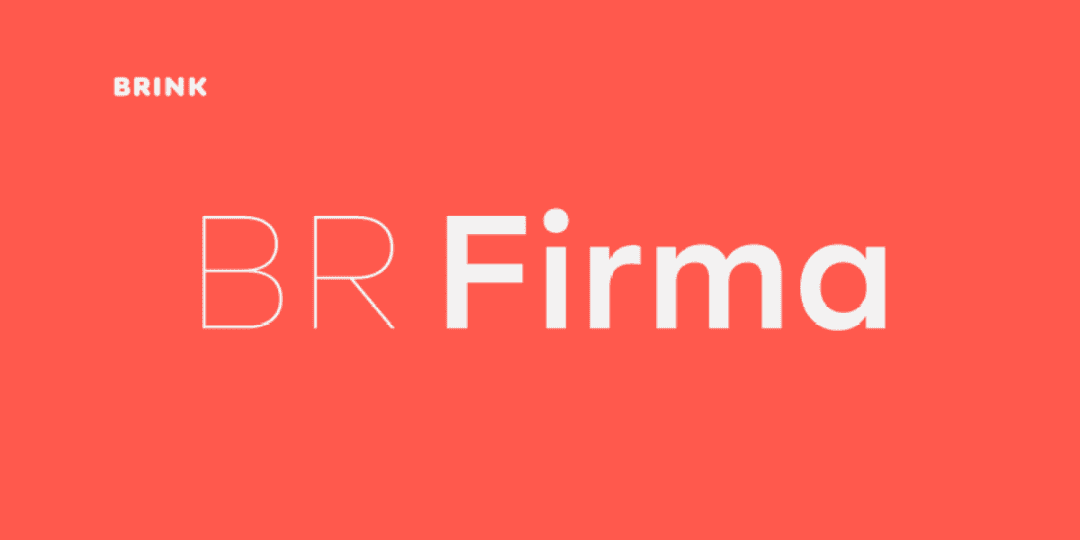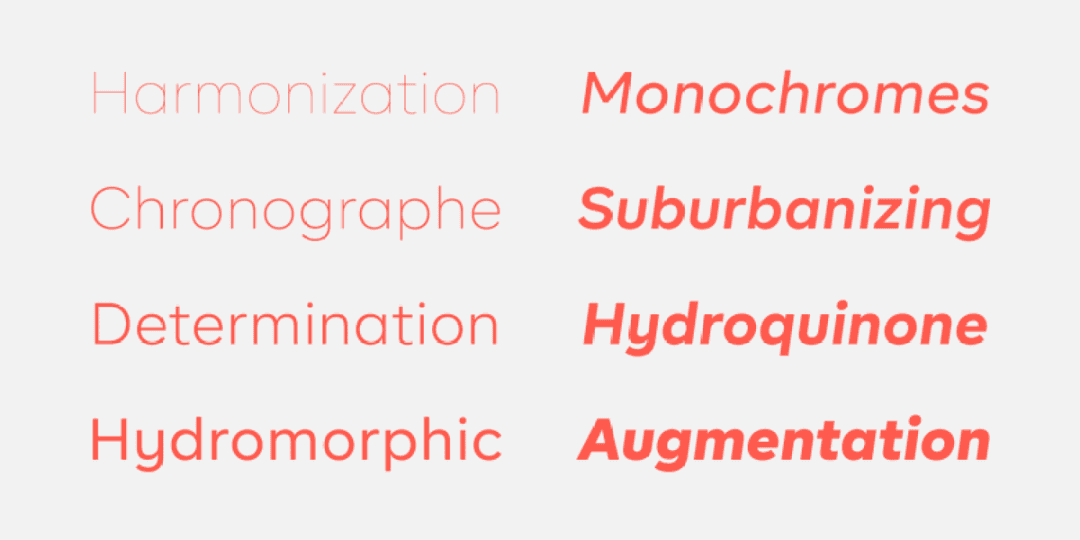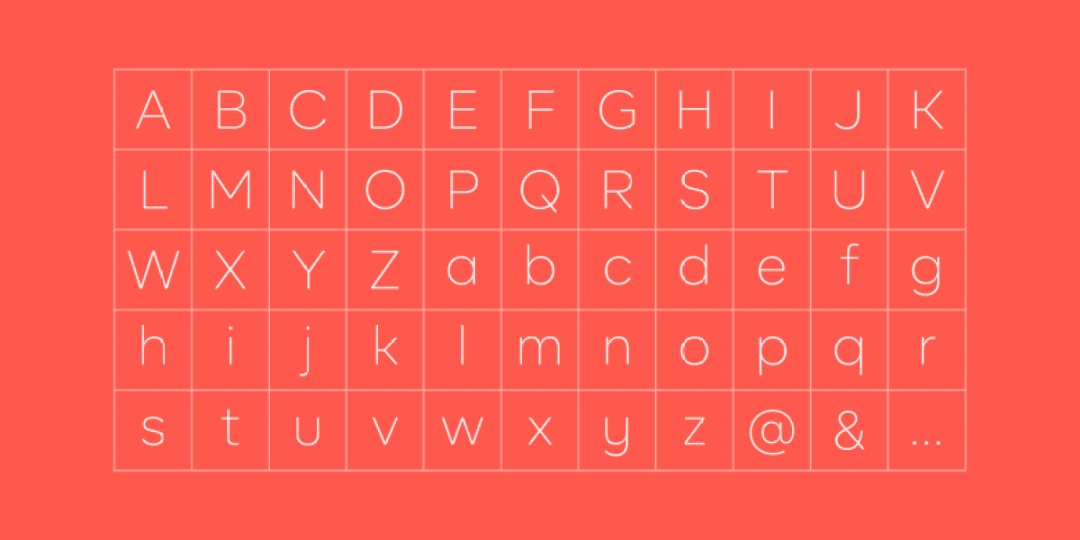
BR Firma is an 8-weight geometric sans serif font family that ranges from Thin up to Black with matching italics. It features an Extended Latin character set which covers over 200 related languages; furthermore, BR Firma also provides advanced typographic support via features like case sensitive forms as well as fractions with slashed zeros.